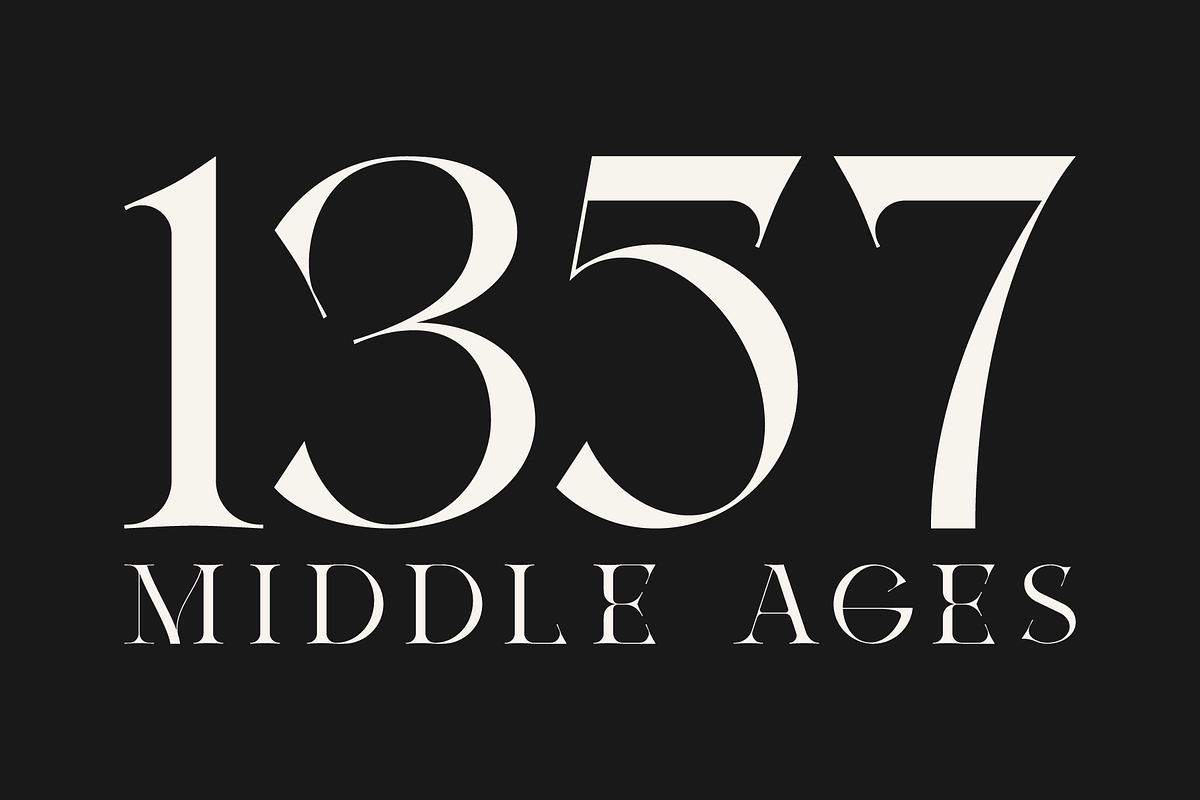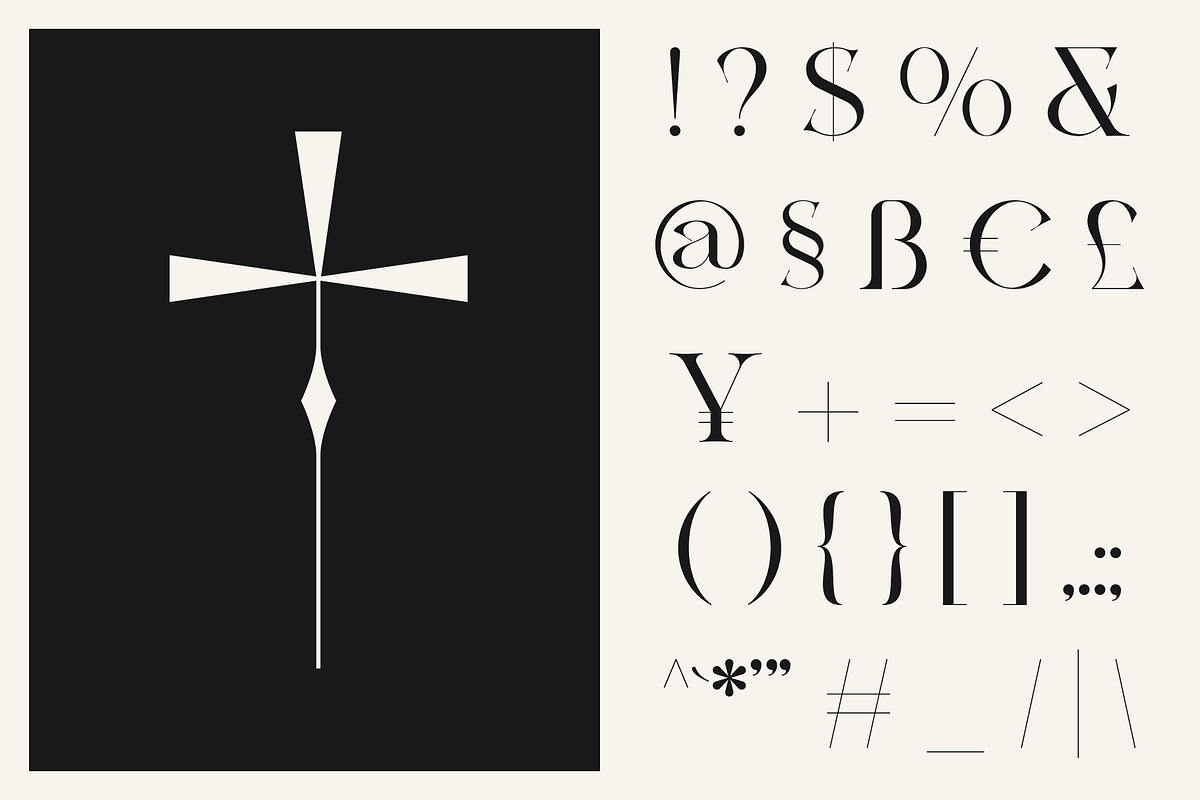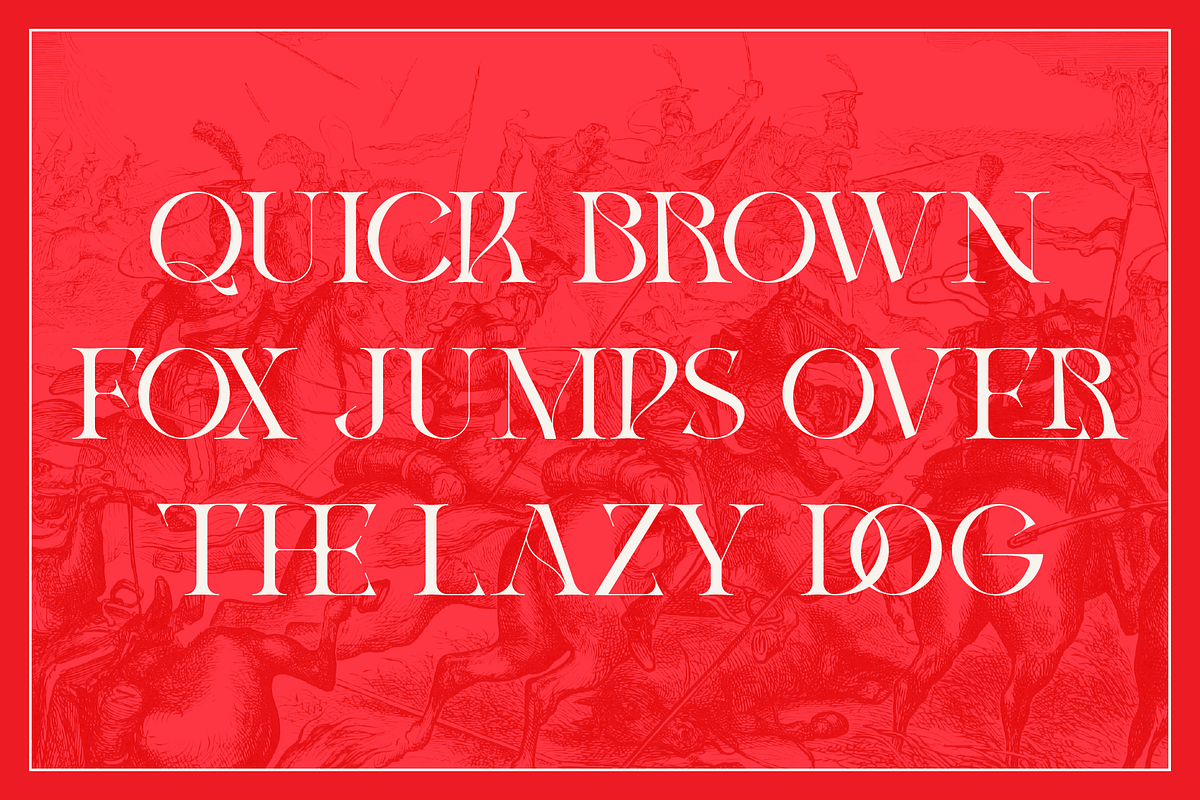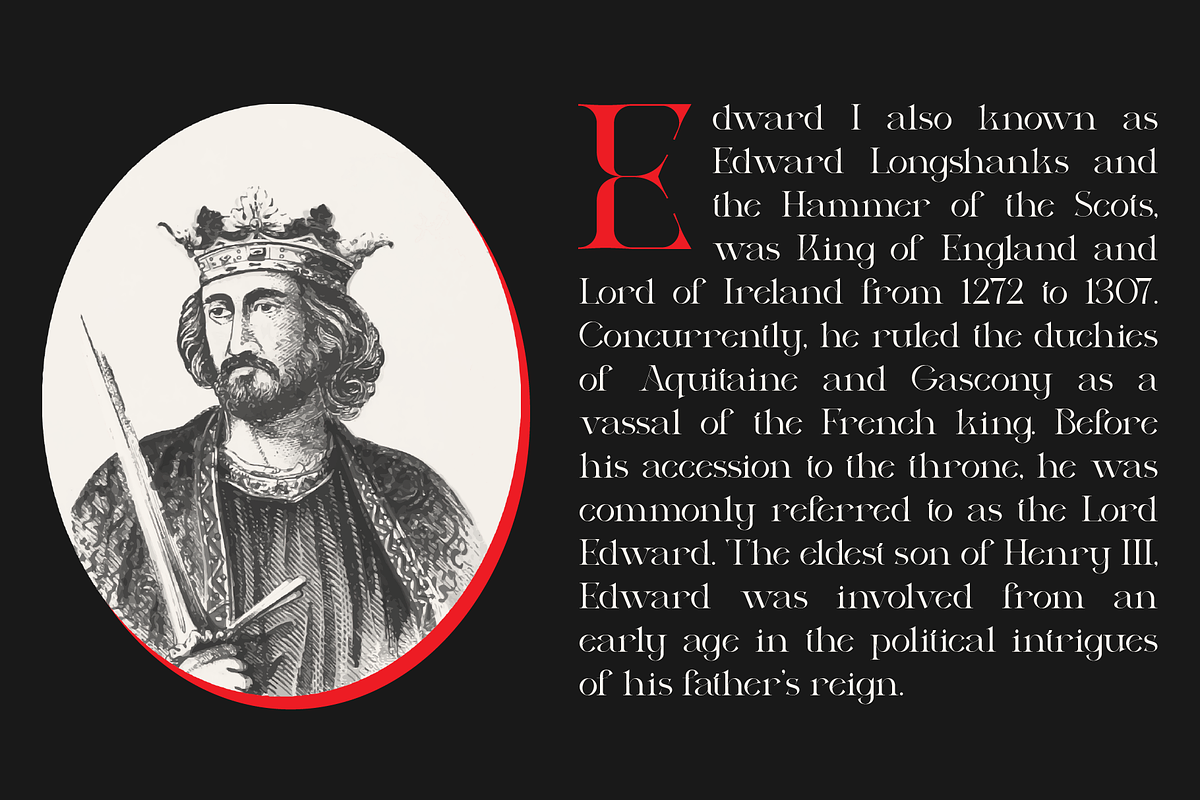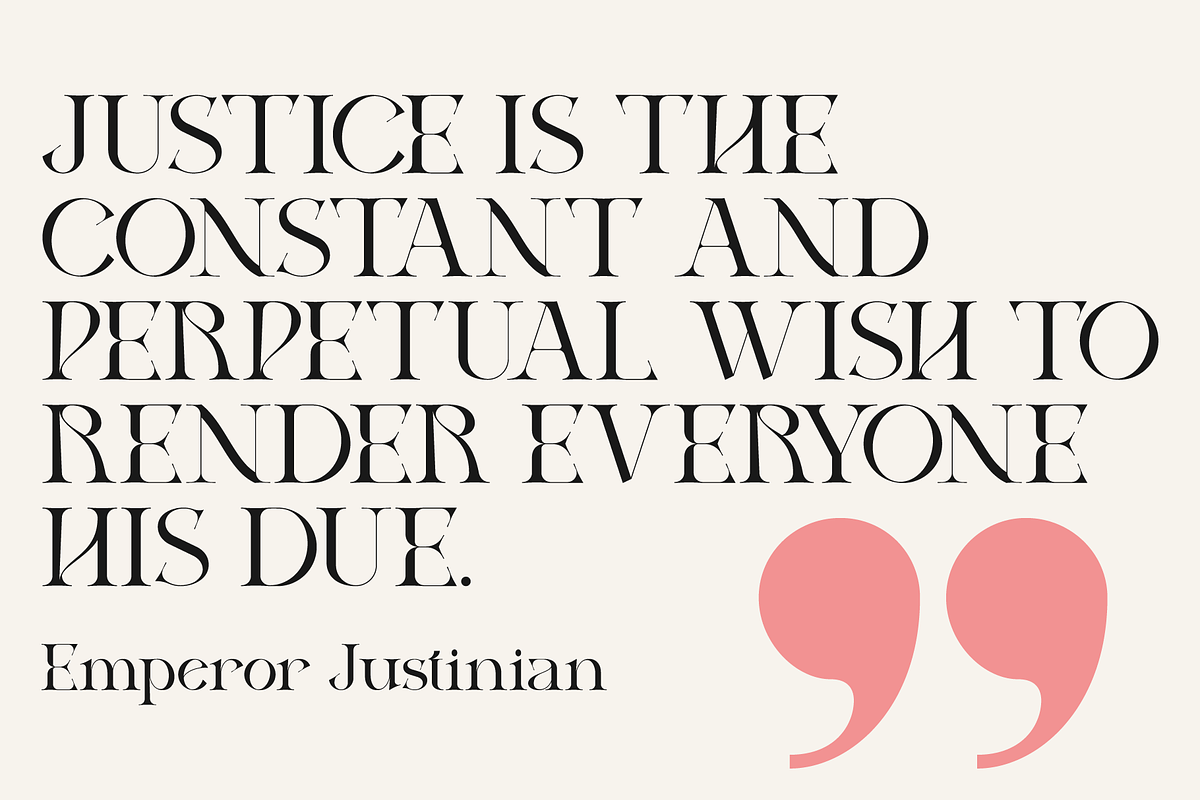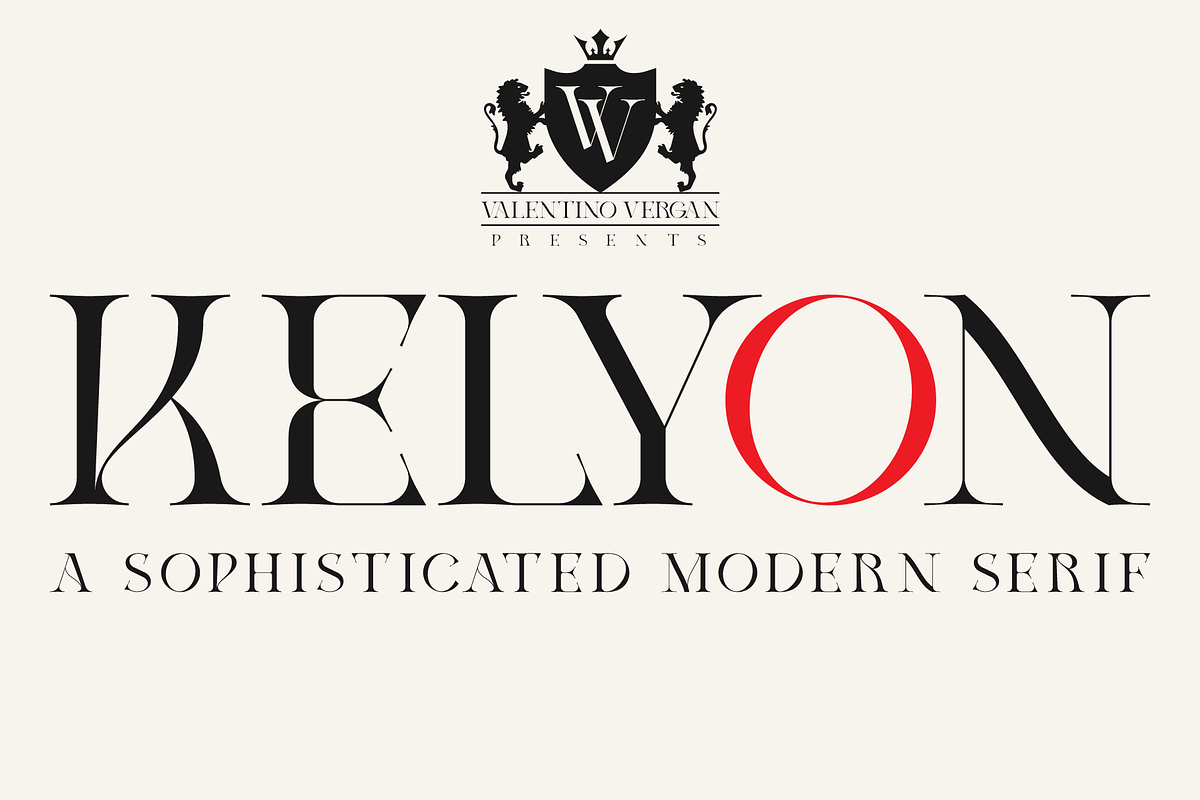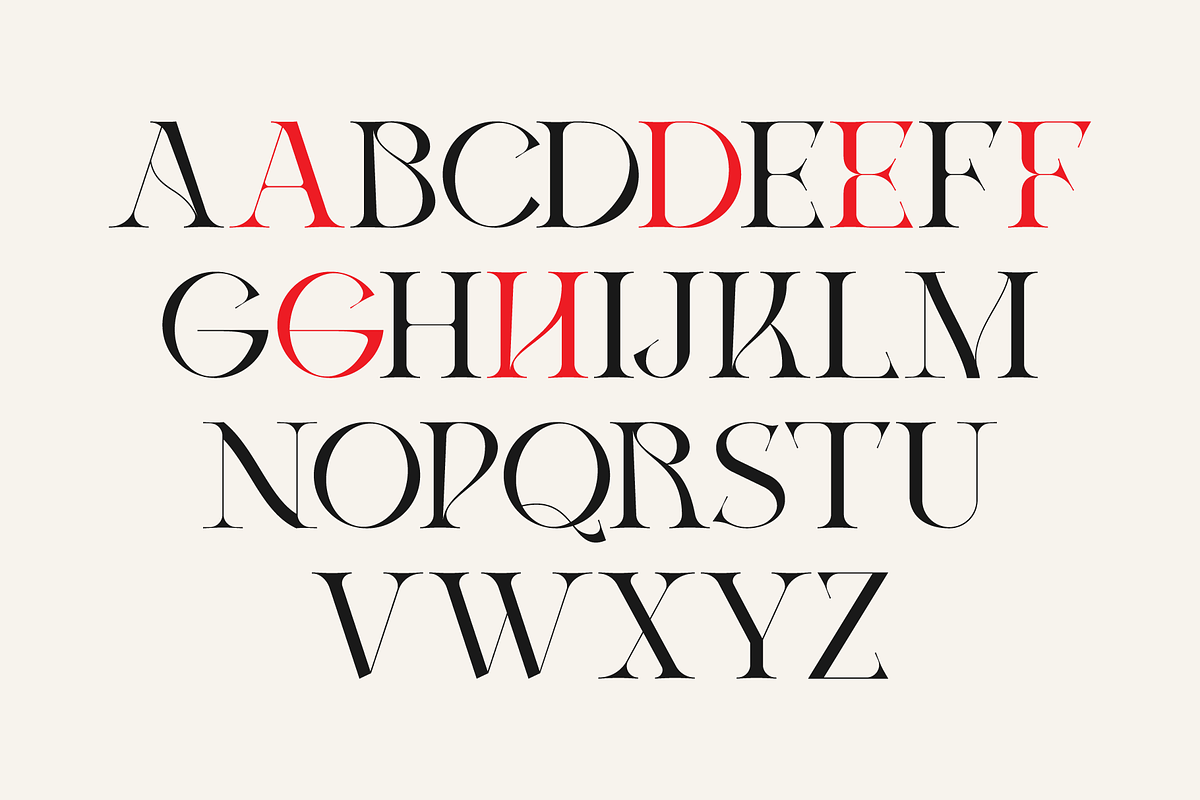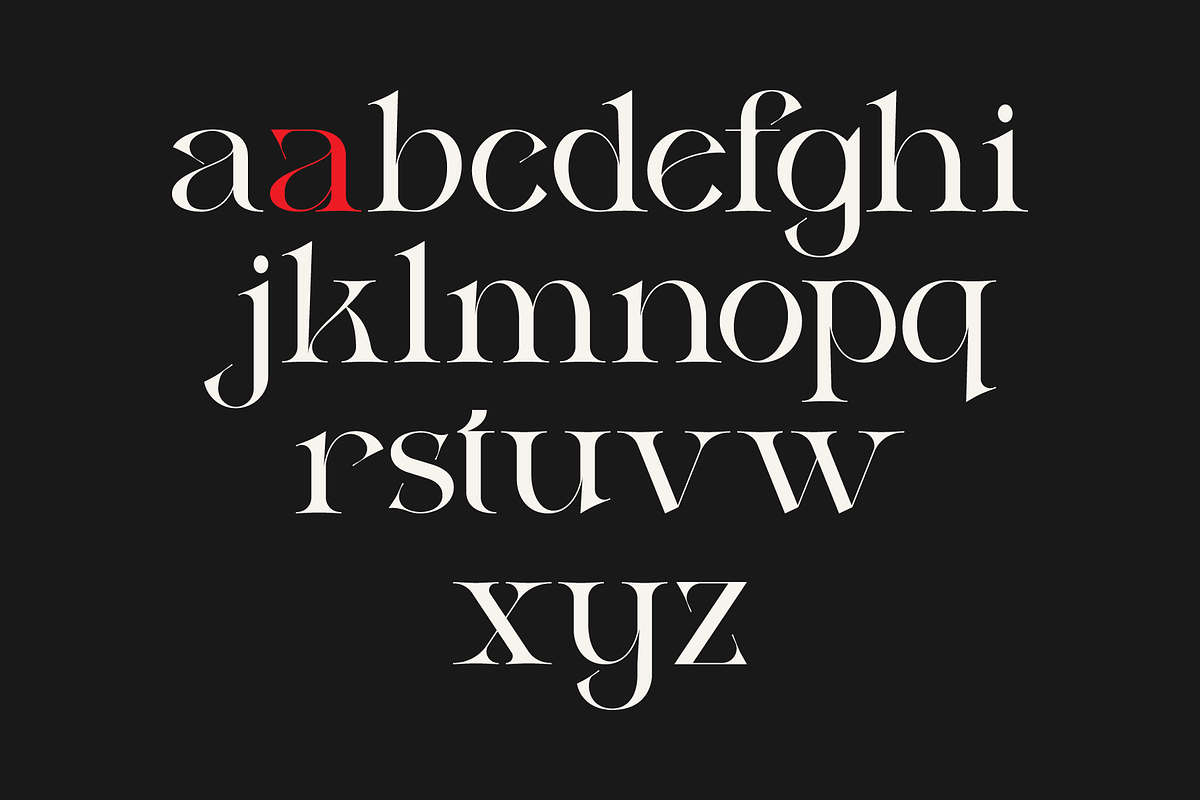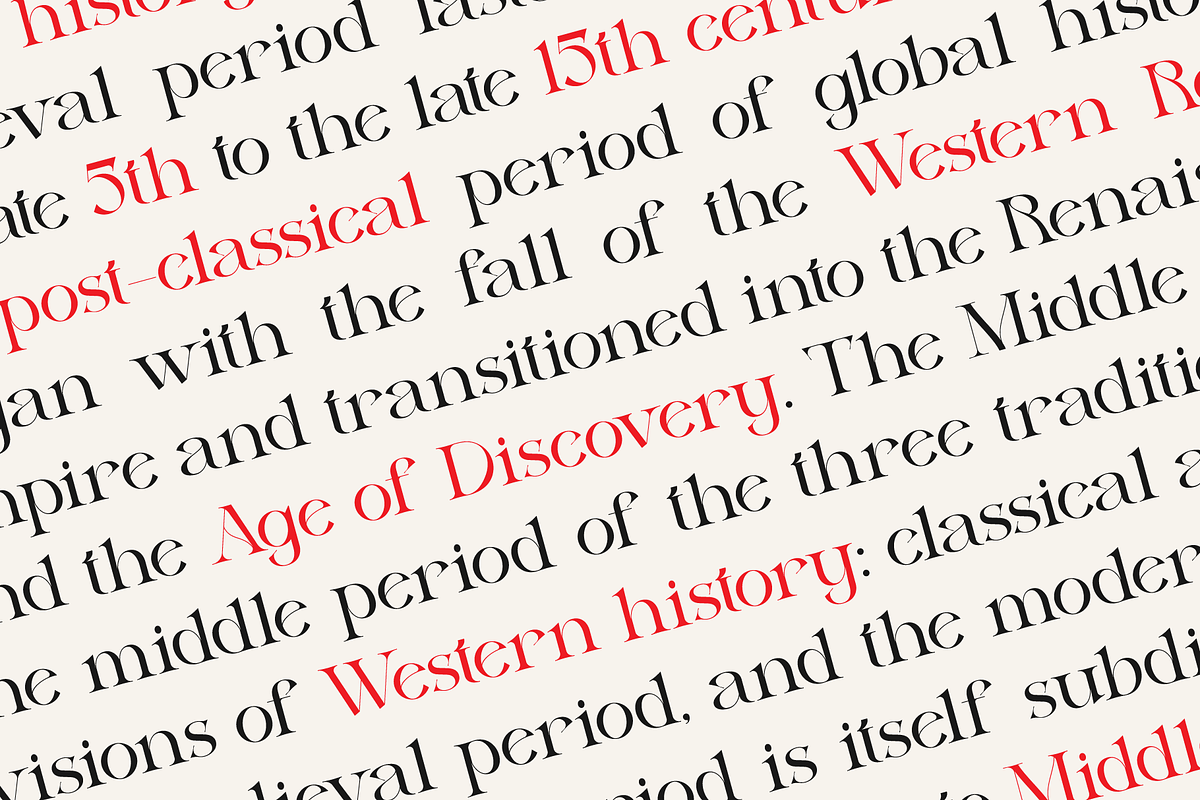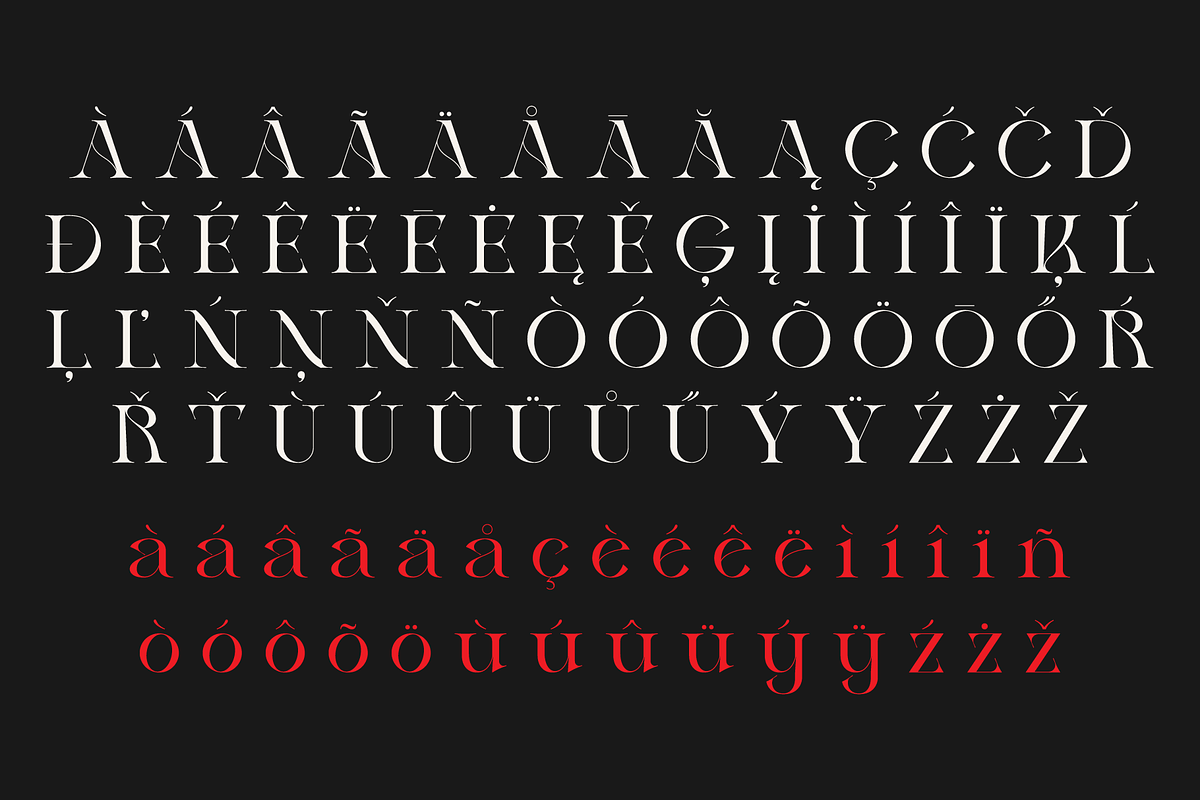
Kelyon - Modern Serif
Kelyon is a sophisticated and modern serif, inspired by the late Middle Ages and early renaissance period. Kelyon was designed with a very thin hairline and long serifs, this reflects the charm and feel of the 14th century.
With over 60 stylistic ligatures, Kelyon is great for headlines and short to medium texts. Kelyon is compatible with 93 languages and contains 439 glyphs, including several alternatives.